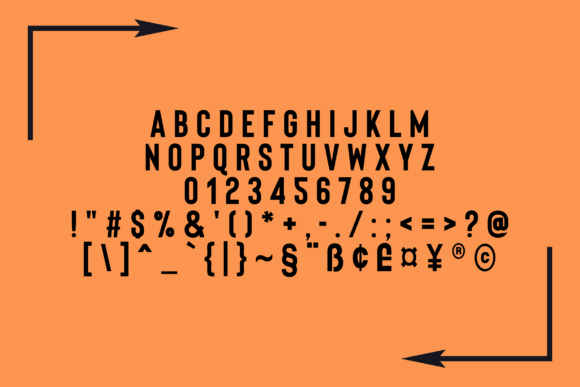
Introduction to Linemark Font
Have you ever found yourself stuck in a creative rut, staring at a blank canvas or screen, waiting for that perfect font to bring your vision to life? For designers, the right font can be the difference between a mediocre project and a masterpiece. And when it comes to sans-serif fonts, one name stands out: Linemark Font.
So why is Linemark Font so valuable for designers? For starters, its high-quality design ensures that your project will look professional and polished, every time. Whether you’re working on a logo, brochure, or website, this font is sure to make your design shine.
Key Features of Linemark Font
- Designed to be highly legible and versatile, making it suitable for a wide range of creative projects and applications.
- Supports multiple languages, making it a great option for global design projects and branding initiatives.
Honest Review: Linemark Font
- ✨ High-quality font design: The Linemark Font boasts a clean and modern aesthetic that’s perfect for a variety of design projects.
- ⚠️ Limited font weights: While the font has a clean design, it’s limited to a few font weights, which may not be ideal for projects that require a lot of variation.
- ⚠️ Not suitable for complex text: The font’s simplicity can make it difficult to read for complex or lengthy text, so be mindful of its use in those cases.
Overall, I’m impressed with the Linemark Font’s design and versatility. While it may have some limitations, it’s a valuable addition to any designer’s toolkit, and its free download makes it an excellent choice for any creative project.
Linemark Font